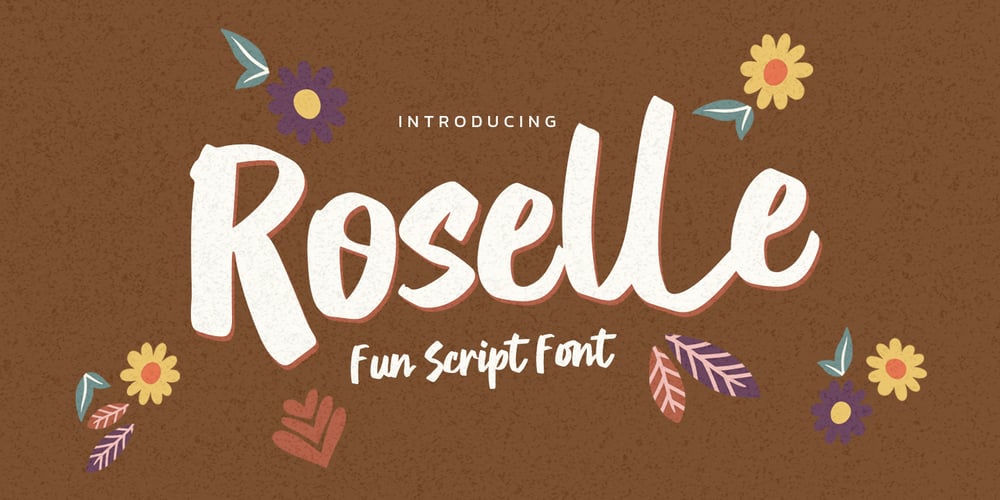
Roselle
Roselle font
Roselle Font Family was designed by Abdul Malik Wisnu, Anang Fibriyanto and published by Gassstype. Roselle contains 1 styles and family package options. Here comes a New font, Introducing Roselle is a Fun Script Font is a Authentic script that is written casually and quickly. Letters are made with handwritten on paper.Roselle Perfect for designs,branding projects, Logo design, Quotes product packaging ,design project as Invitation,logo, book cover,.This font is PUA encoded which means you can access all of the magical glyphs with ease! It also features a wealth of special features including You can activate 22 Ligatures OpenType panel.